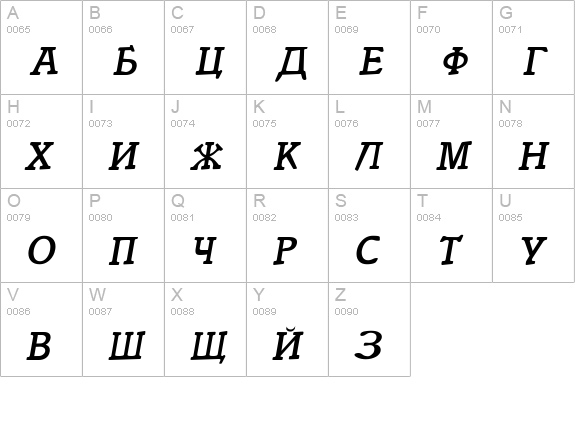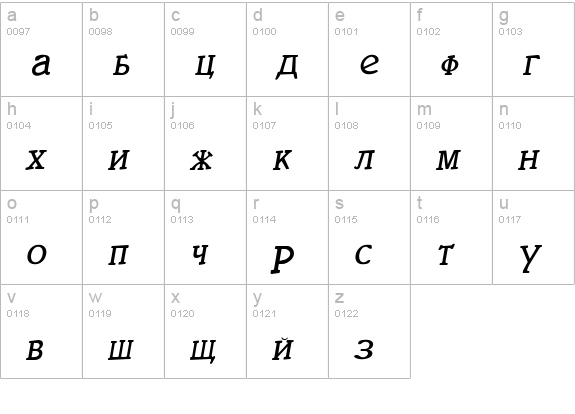
ItaliaCyrillicItalic Italic Font Details
ItaliaCyrillicItalic Italic is a distinctive, italic variant in the ItaliaCyrillicItalic typeface family \xE2\x80\x94 well suited to design and typography projects.
ItaliaCyrillicItalic Italic font is a stunning and elegant typeface that combines the classic elements of Cyrillic script with a touch of modernity. Its graceful and slanted letterforms exude a sense of sophistication and style, making it perfect for various design projects. This font is meticulously crafted with attention to detail, ensuring each character's curves and strokes are beautifully balanced. The italic style adds a subtle flair to the letterforms, enhancing their visual appeal and making them stand out on any medium. ItaliaCyrillicItalic Italic font is not only visually captivating but also highly versatile. Whether used in print or digital media, it lends a touch of elegance to any design, be it logos, branding materials, invitations, posters, or websites. Its unique combination of traditional Cyrillic elements and contemporary design makes it an excellent choice for projects that require a fusion of classic and modern aesthetics. What makes ItaliaCyrillicItalic Italic font even more appealing is that it is freely available to download at FontsMarket.com. This means that designers and enthusiasts alike can access this exceptional font without any cost, allowing them to explore its creative potential to the fullest. So, if you're seeking a distinctive and captivating typeface that seamlessly blends the beauty of Cyrillic script with a modern twist, ItaliaCyrillicItalic Italic font is the perfect choice. Download it today from FontsMarket.com and elevate your designs to new heights of elegance and sophistication.